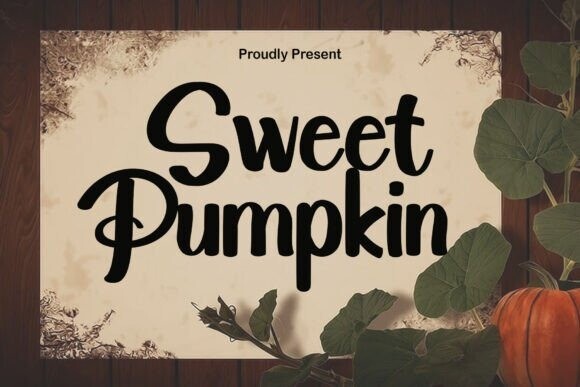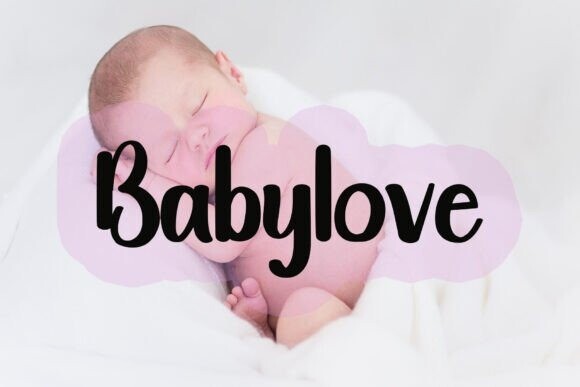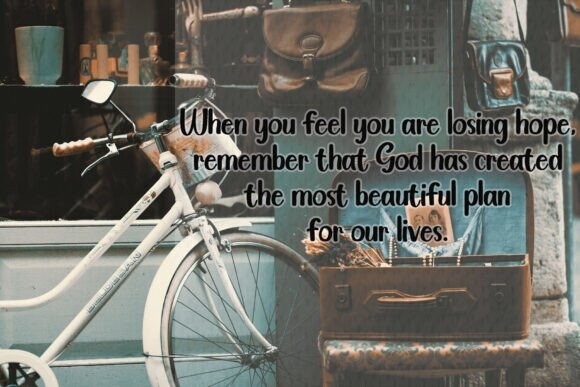
Sweet Pumpkin Font
Sweet Pumpkin Font is an enchanting and beautifully flowing handwritten font. This versatile typeface has a wide spectrum of applications ranging from greeting cards to headlines and is guaranteed to add a romantic feel to your next project!